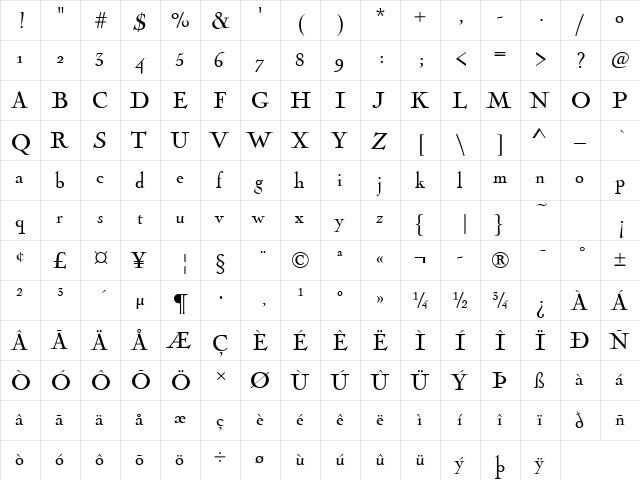
NicolasCocT Regu
Design Context for NicolasCocT Typeface
NicolasCocT offers clean, dependable letterforms without strong stylistic allegiance, making it a practical choice for designers who need flexibility.